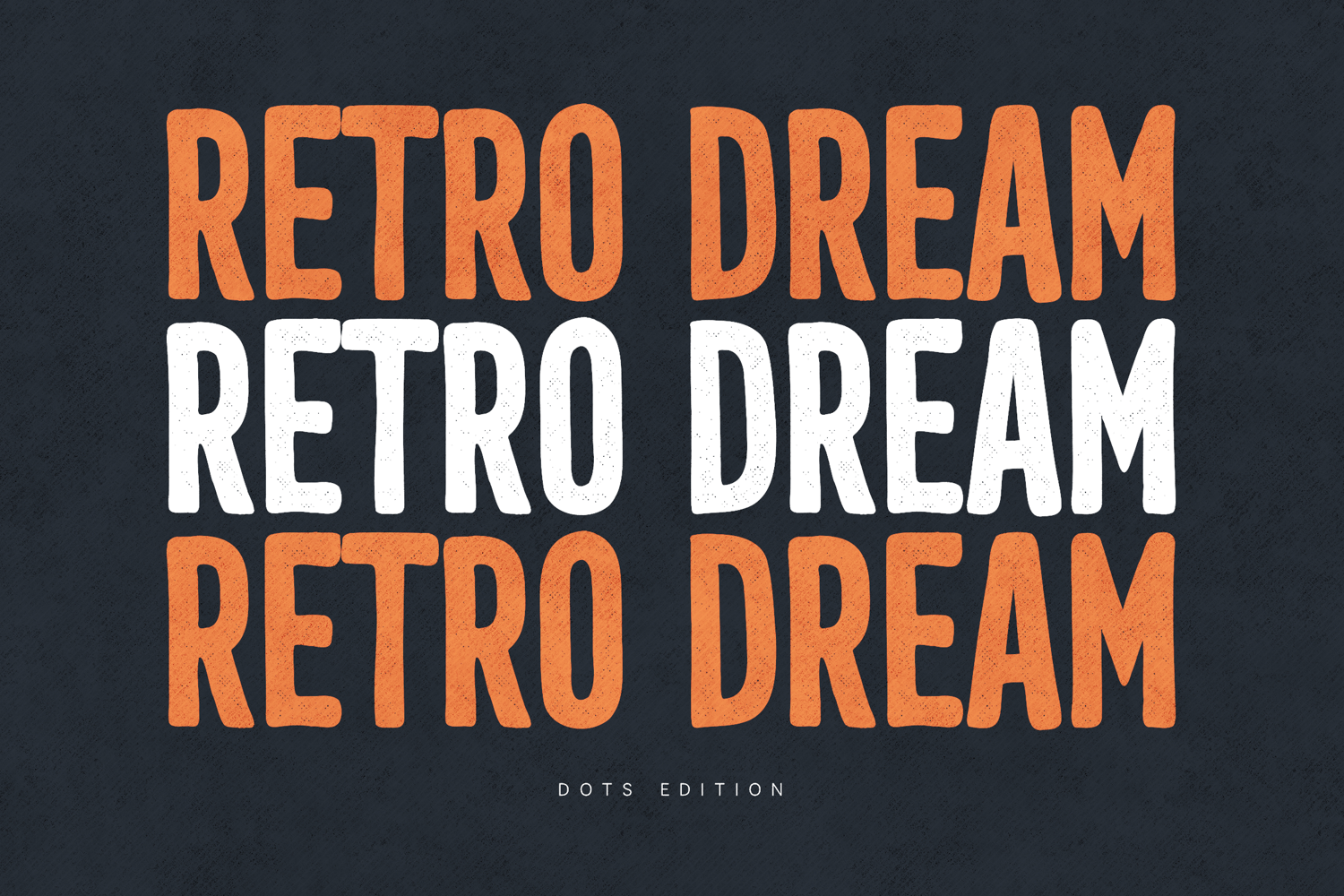
Retro Dream Textured Vintage Display Font
Retro Dream is a bold vintage-inspired display typeface featuring textured letterforms and a strong retro character. Designed with condensed proportions and slightly irregular shapes, the font captures the nostalgic feel of classic print posters, retro packaging, and old-school signage.
The textured details create an authentic worn print effect that adds personality and depth to any design. Retro Dream blends vintage aesthetics with modern usability, making it perfect for designers who want to create eye-catching typography with a handcrafted look.
The font includes a special Dots Edition style, adding an extra retro texture that enhances the nostalgic atmosphere of the typeface.
Retro Dream works beautifully in bold headlines, branding, posters, apparel graphics, and packaging where strong visual impact is needed.
The typeface includes uppercase and lowercase letters, numbers, punctuation, and multilingual support, making it suitable for a wide range of international design projects.